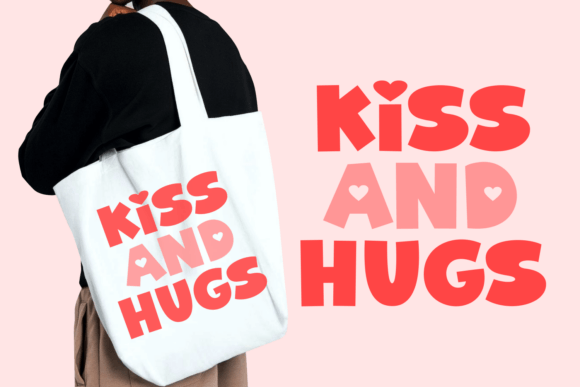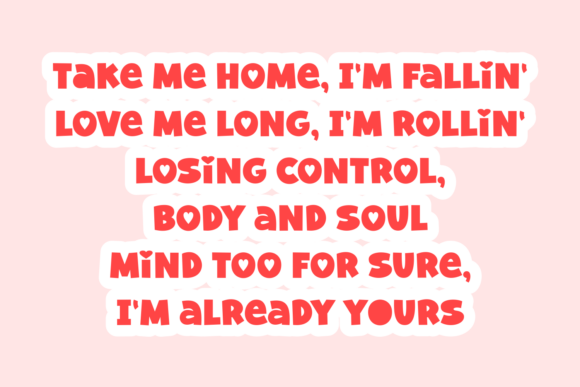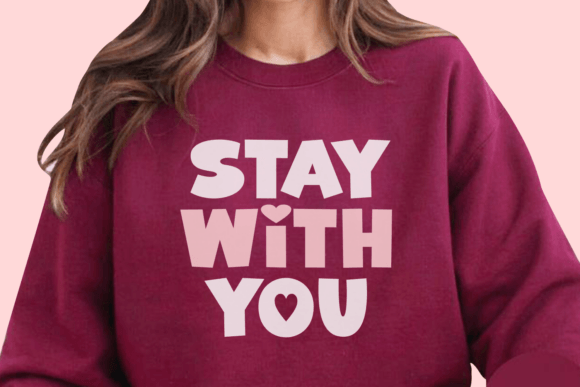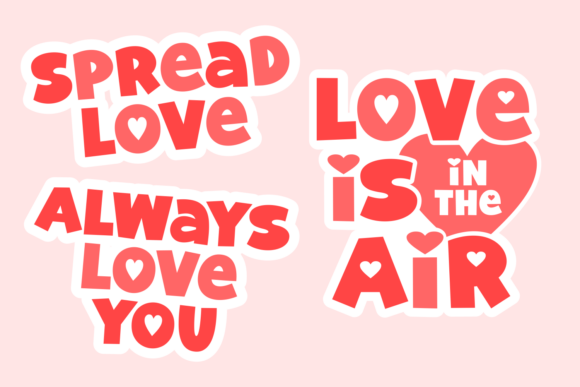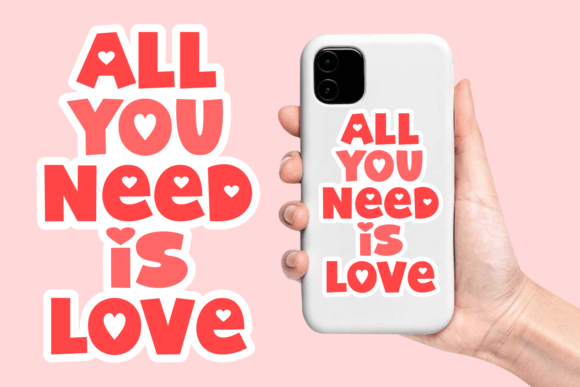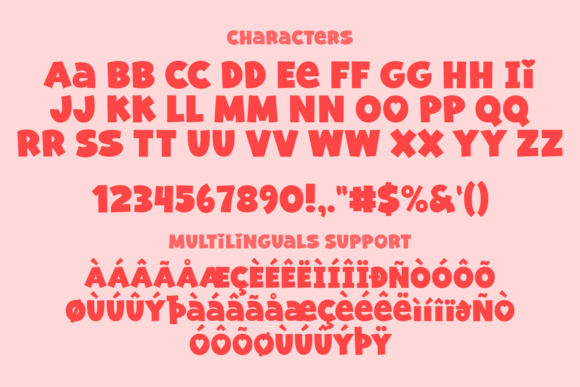
Introduction to Crush Stories Font
Introducing the vibrant Crush Stories Font – a daring Valentine’s inspired typeface that promises to add a unique flair to your creative prowess.
This custom-made font infuses an exotic charm into your designs, making them shine whether they’re adorning mugs, shirts, walls, stickers, and beyond Immerse yourself in the extraordinary universe of typography with Crush Stories Font and eloquently express your affectionate, inventive narratives.
Key Features of Crush Stories Font